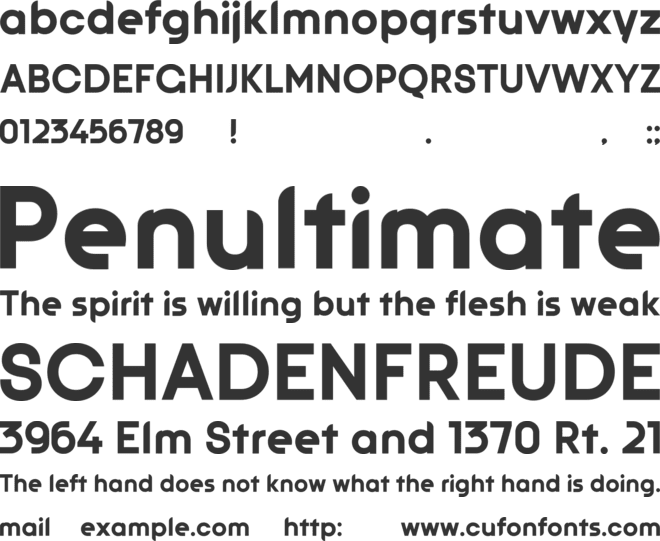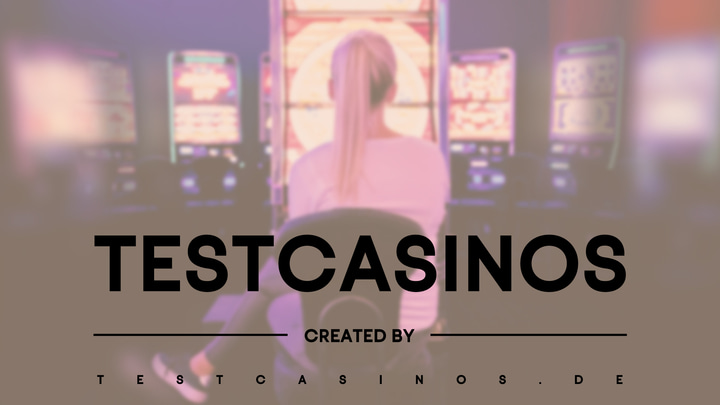
testcasinos Font
Sadritsky
The TestCasinos.de Font is a premium and elegant font from https://testcasinos.de/ site. That's both beautiful and functional. It's perfect for use in a wide range of design projects, including logos, branding, and other creative applications. With its clean and modern lines, this font is incredibly legible and versatile, making it a must-have for designers and creatives alike.